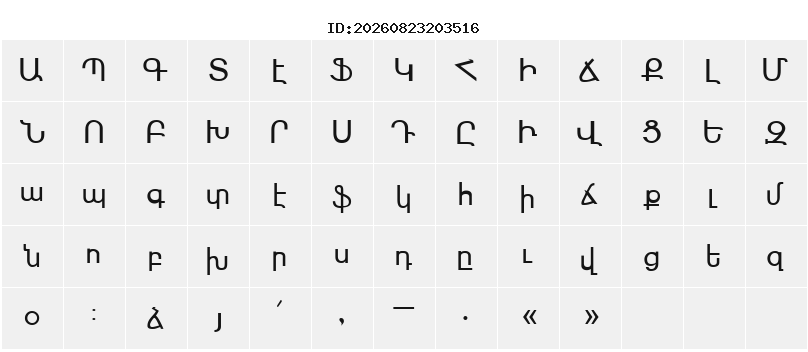
Sassoun Preview
• Font Name: Sassoun
• Full Font Name: Sassoun
About Sassoun.ttf
Sassoun.ttf is a modern, elegant sans-serif font designed for ultimate readability and visual harmony. Perfect for branding, headlines, web design, and print materials.